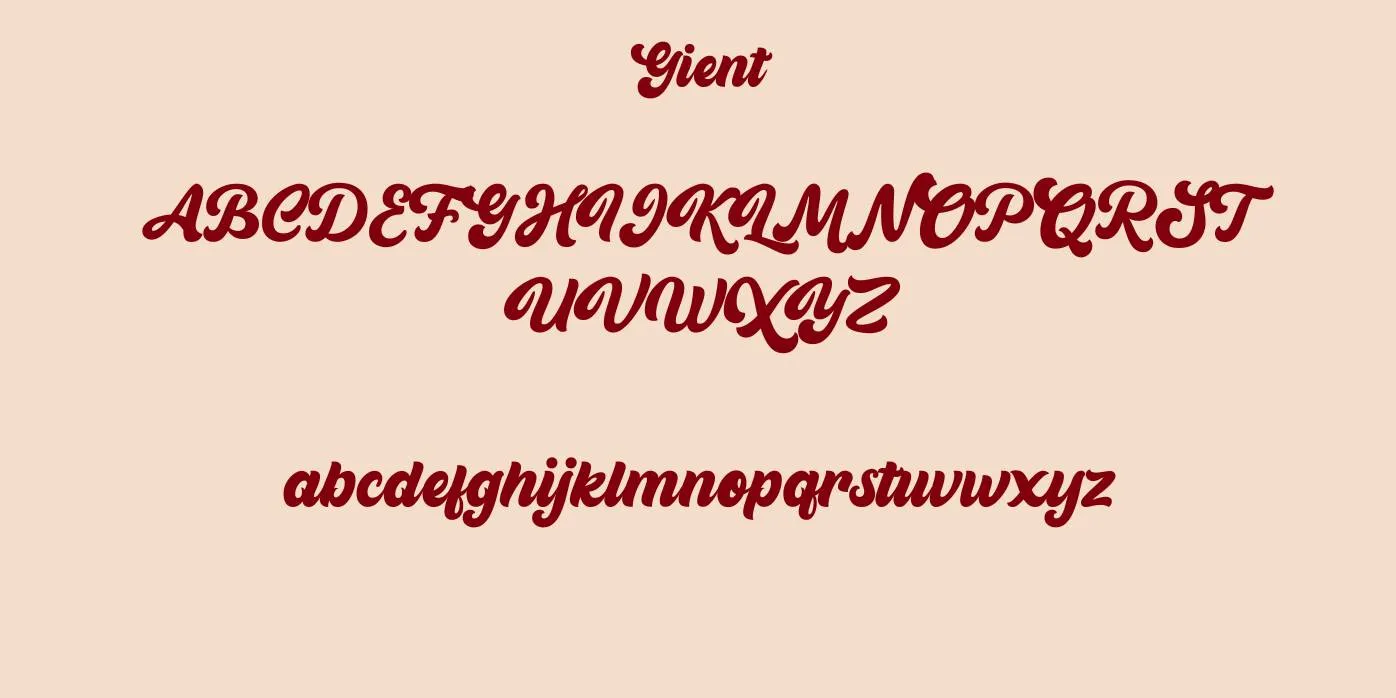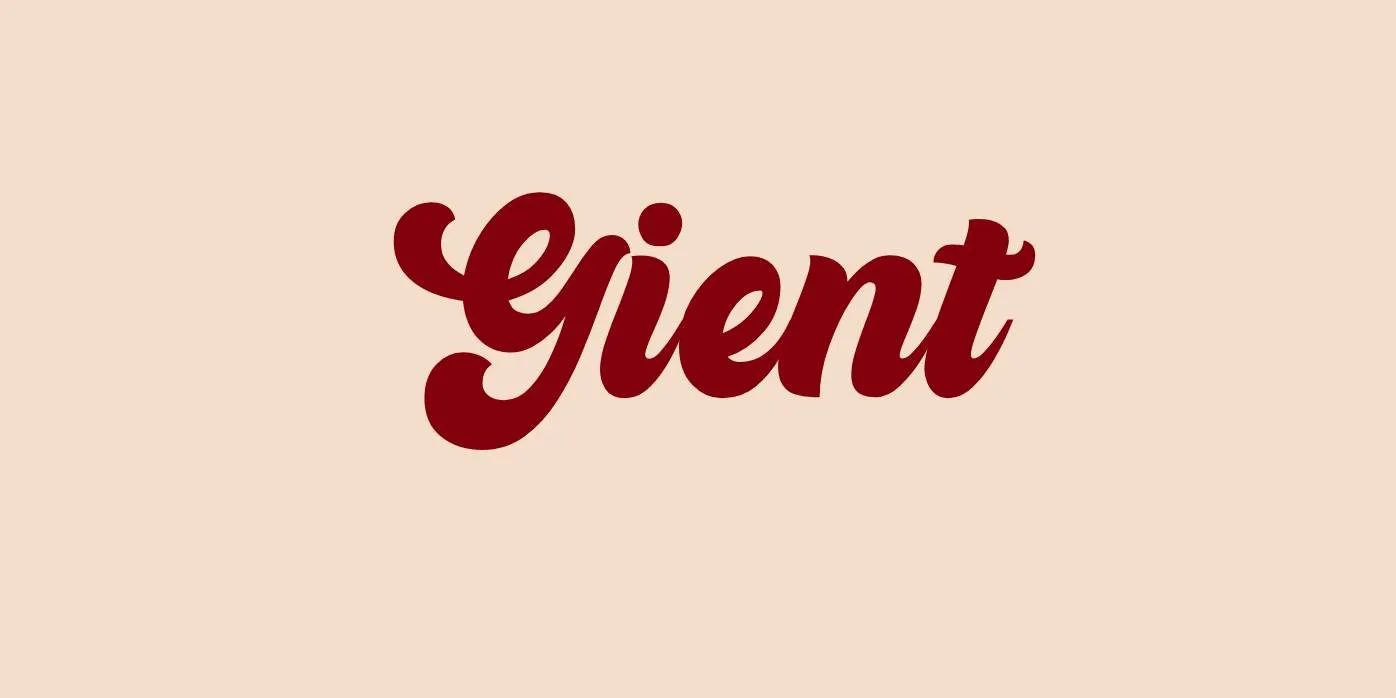
Gient Font
Gient Font is a very amazing fancy font that was designed by Kong Fonts. Its has geometric shapes structure give a very attractive look to your projects. This font is available in two different formats TTF and OTF. So, you can use it on different types of devices such as Windows, PC, and Mac.
It has very interesting features with a very stylish look. The weight of the font is bold and its width is medium which comprised of 221 characters, 216 glyphs, and 2048 units per Em. You can use it in an online generator tool also to convert simple text into gient font by copying and pasting your text. It will appear on the screen immediately without downloading the font.
This font can also used for pairing with other fonts like golden gates font to give a more attractive look to your projects. Usage It has full character of set including lower case, uppercase, symbols, punctuations, and special characters also. It is considered very nice for making headings, Logos, and titles for different types of brands and organizations. To make book and magazine covers you can use this font as well.
It can be used to make both print and digital media projects. This type is a good choice for making designs in Adobe Photoshop and other Illustrators. This stunning typeface is also good for designing websites and graphic designs. You can make wedding invitations, greeting cards, and other invitation cards by using this font.